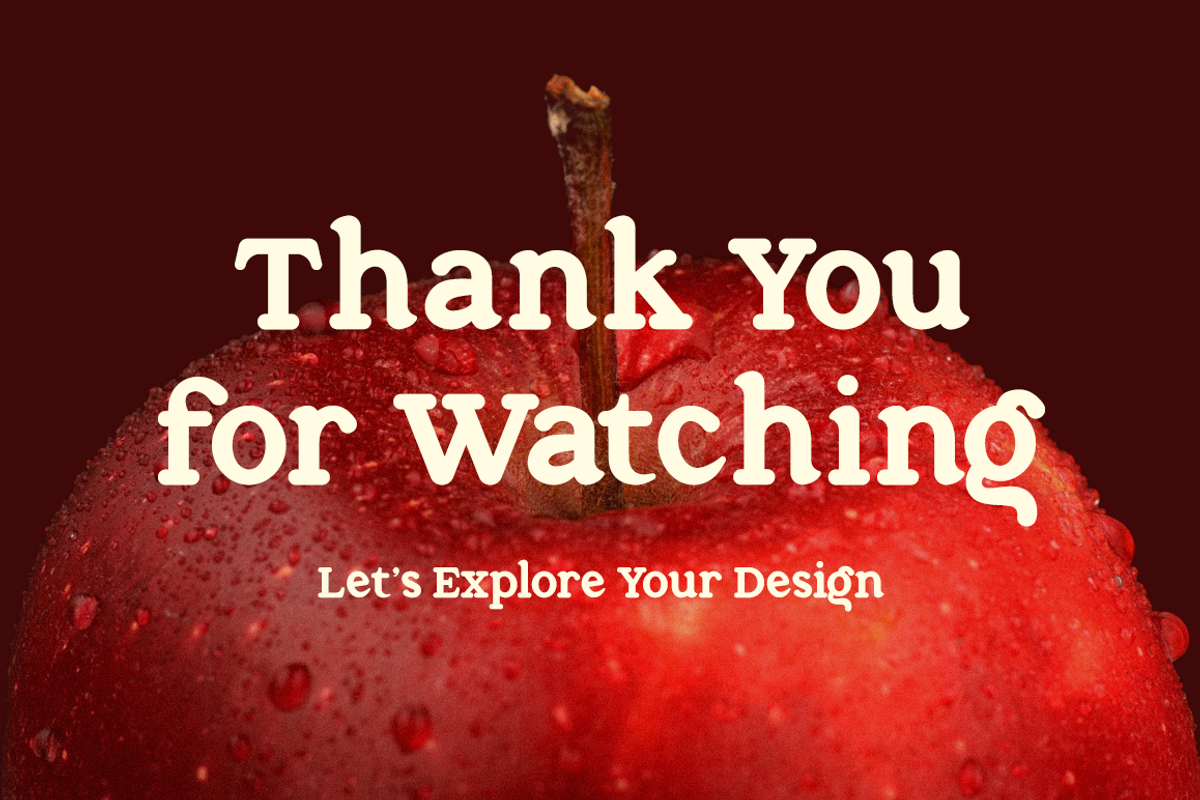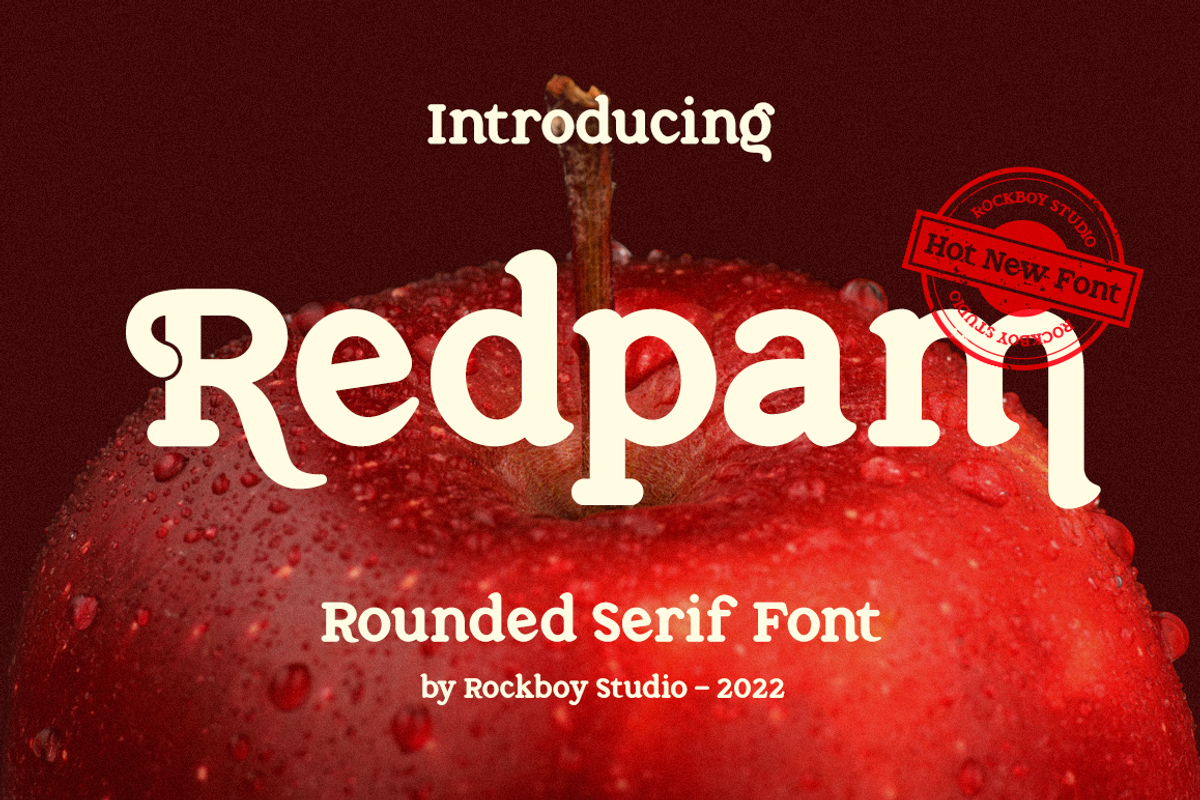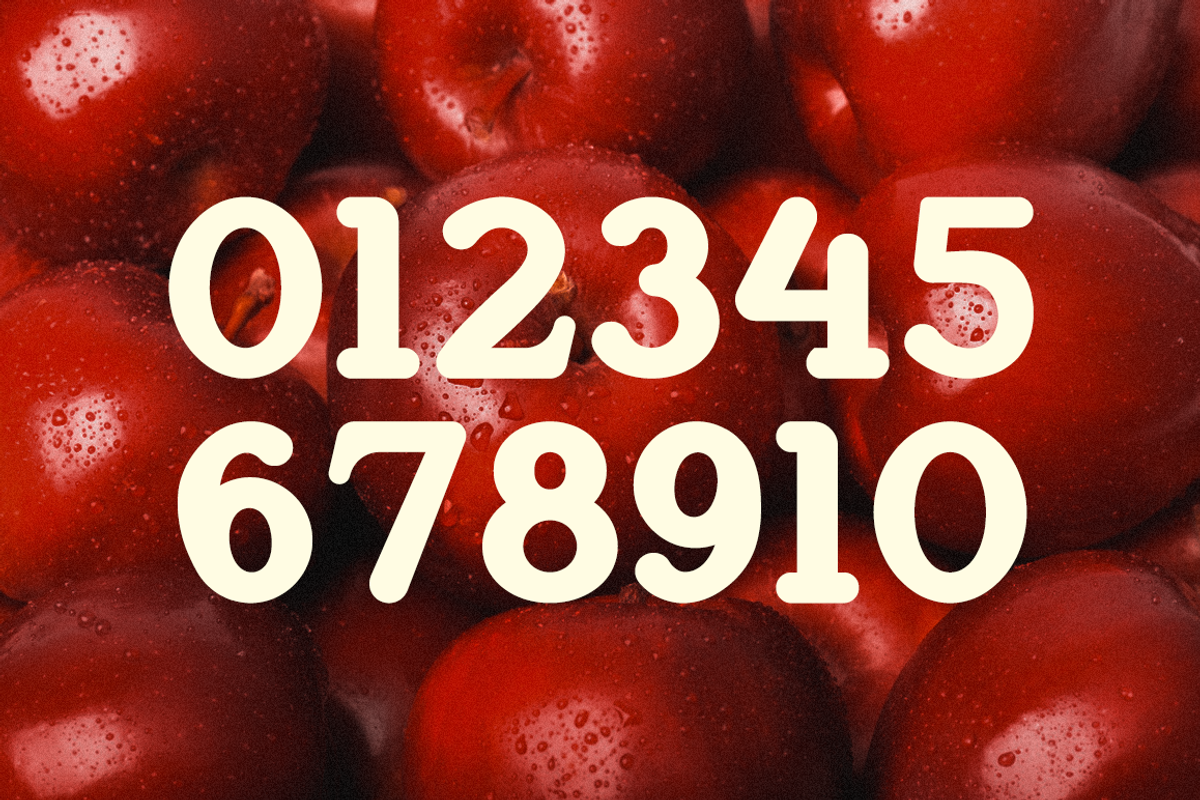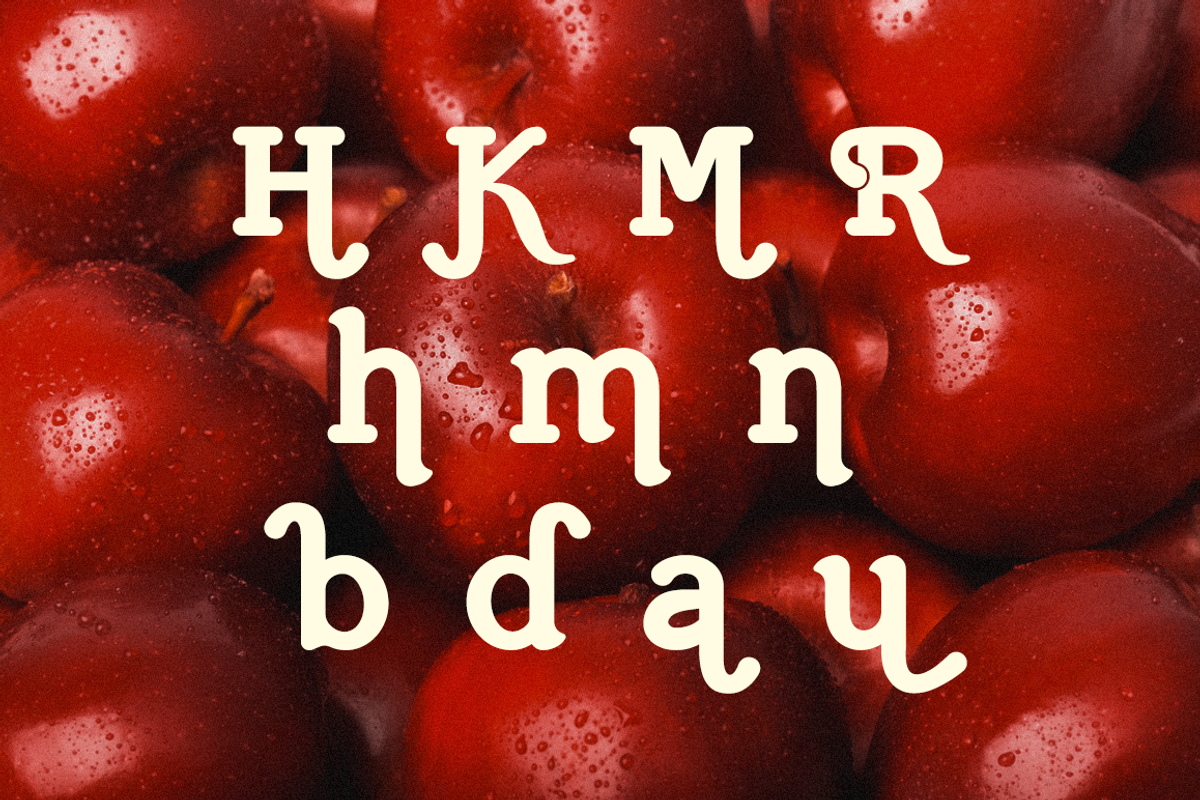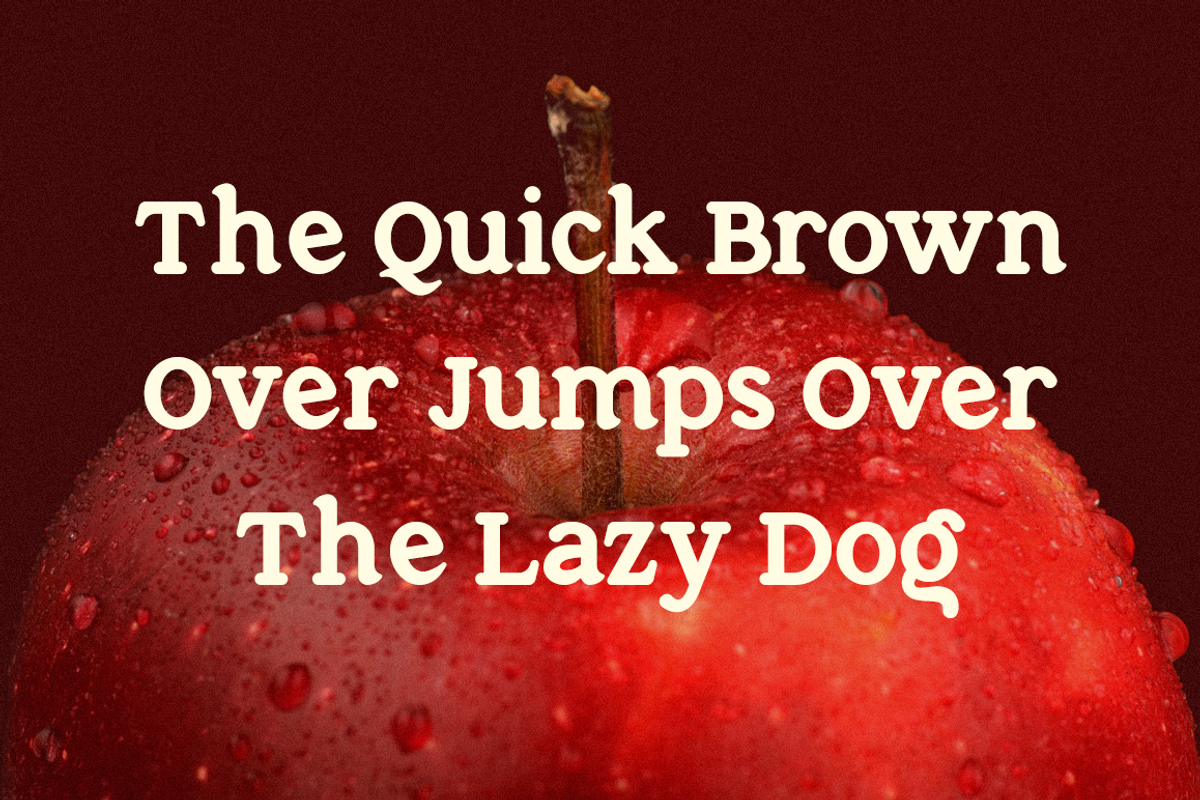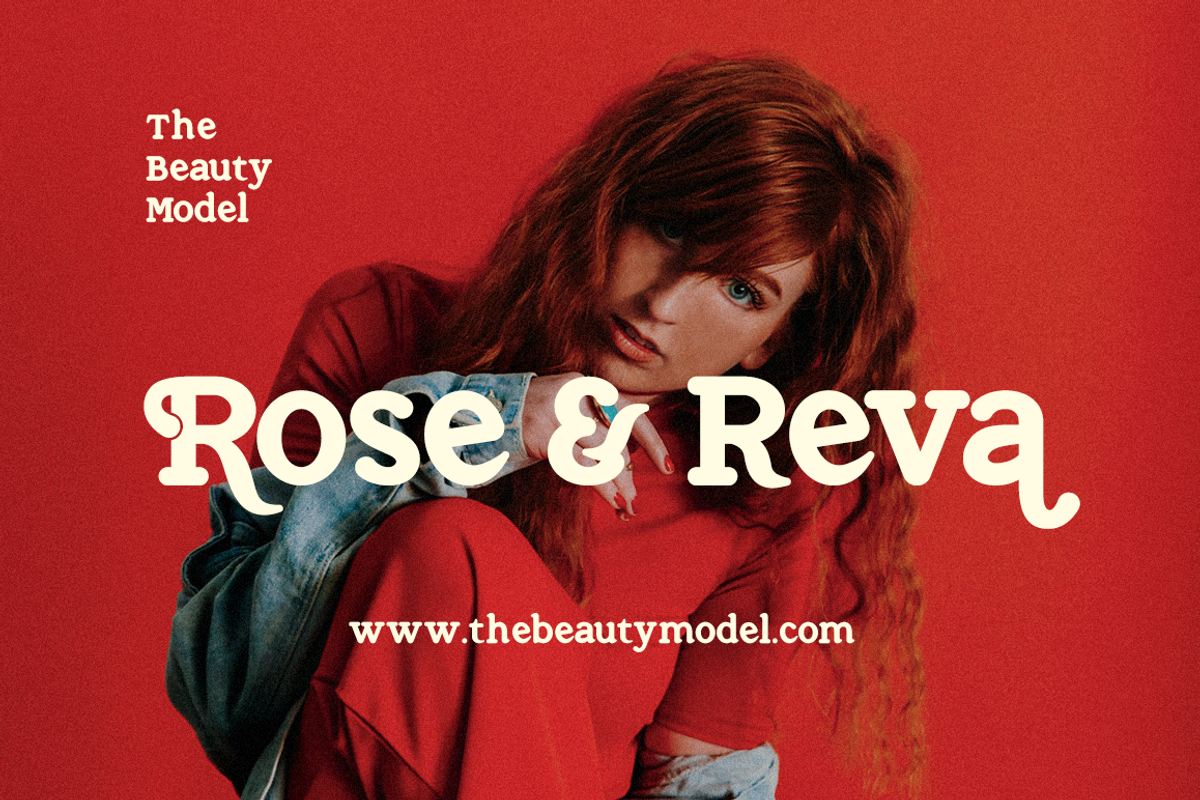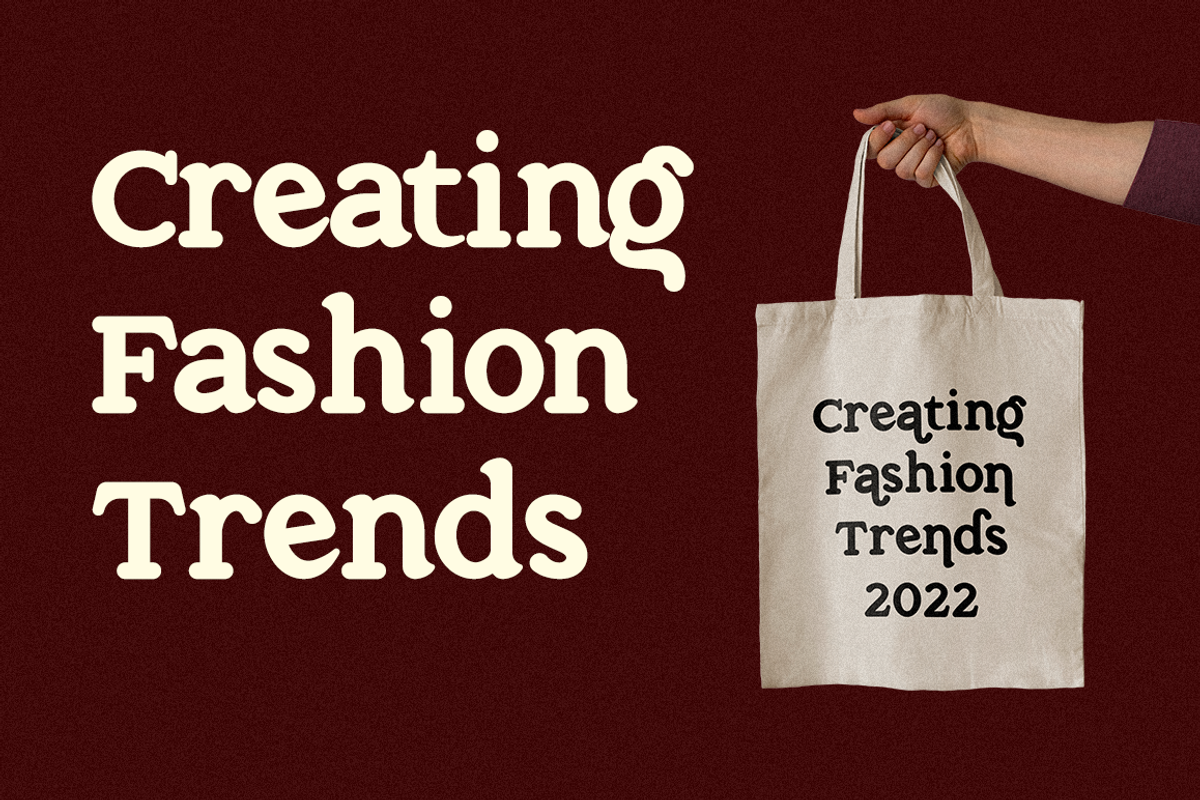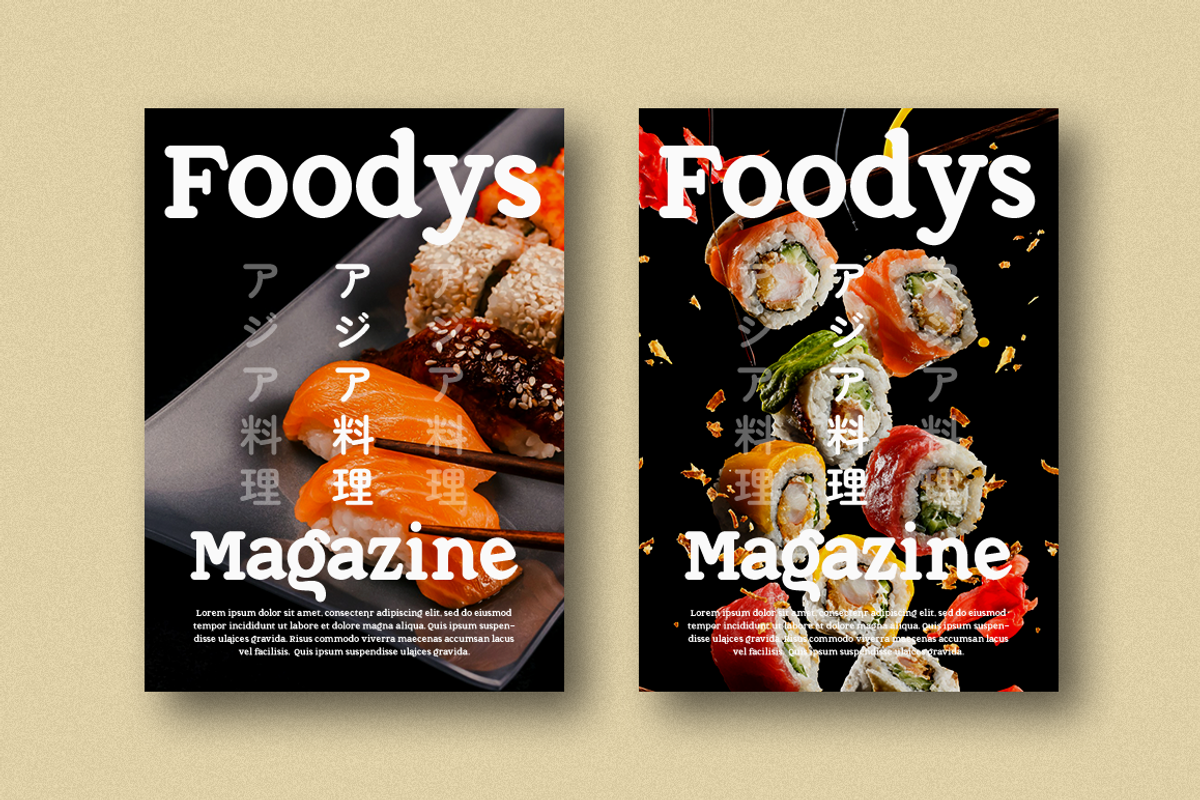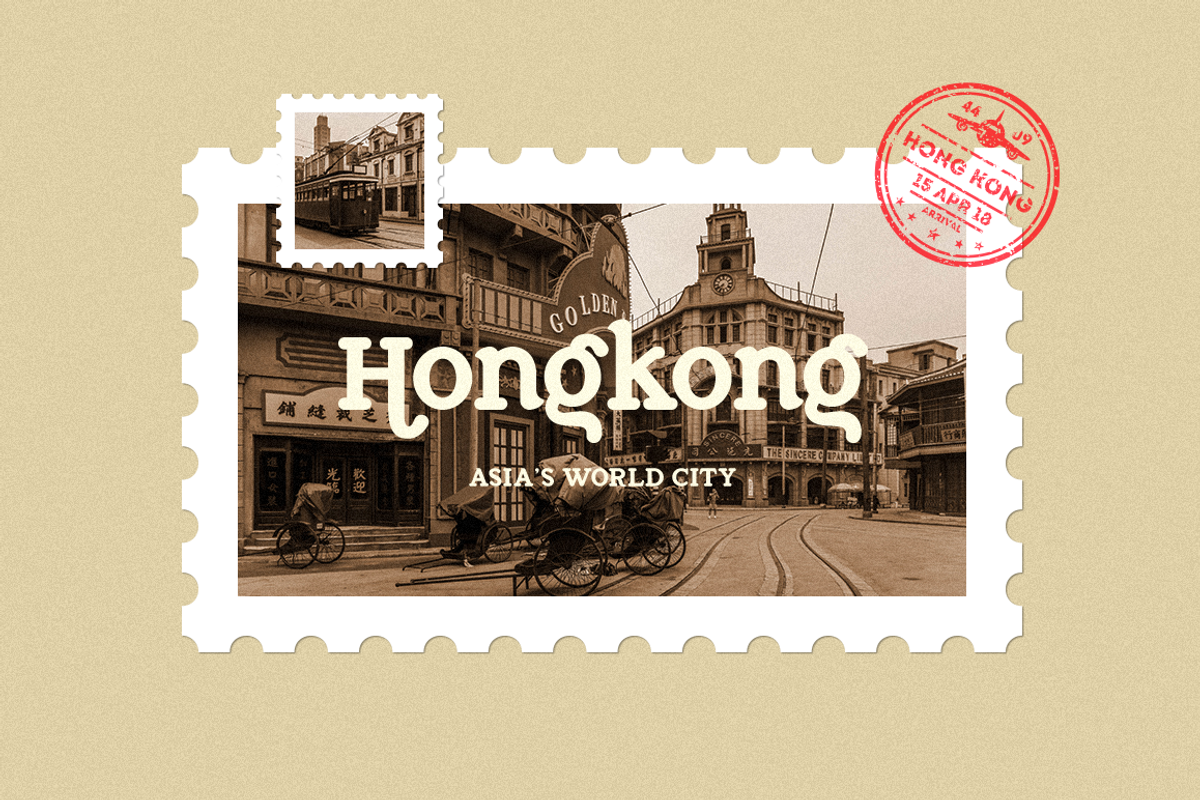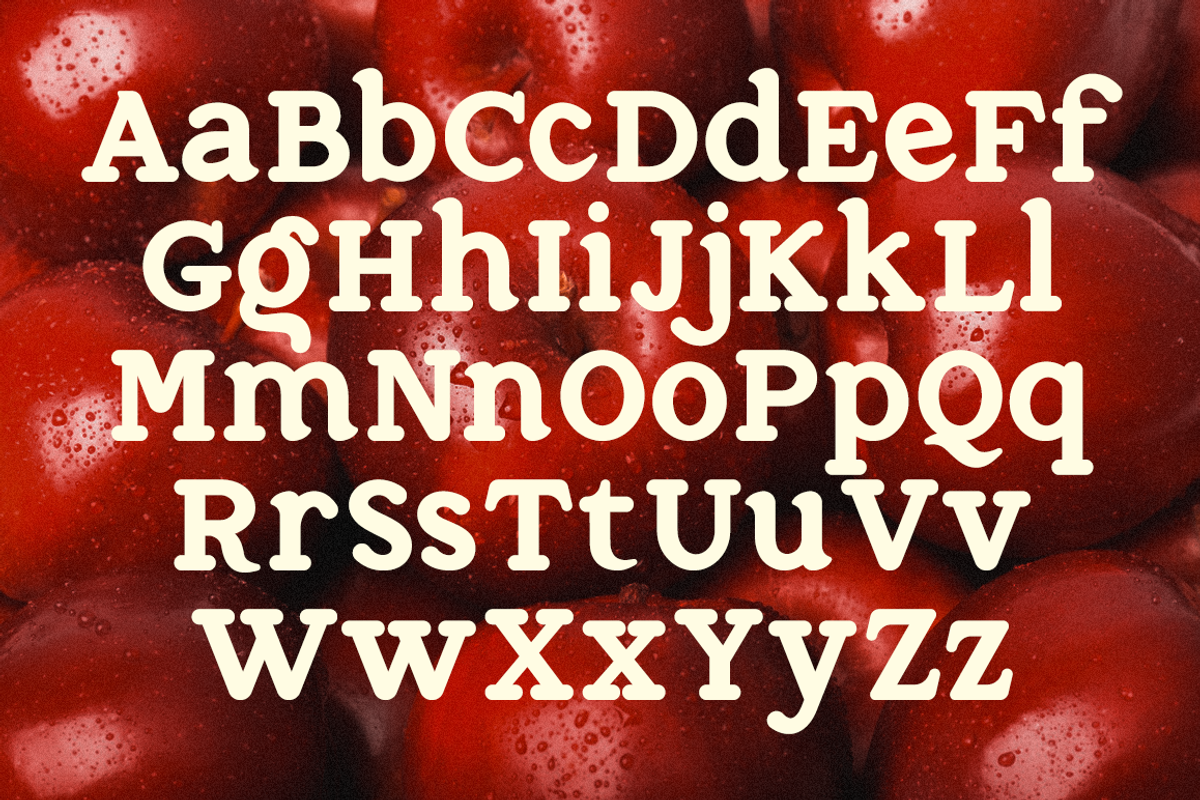
Redpam - Advertisement Font
Redpam is a distinct and elegant serif font. You can use this modern font for fashion, magazines, cooking websites, quotes, social media posts, labels, and many more!